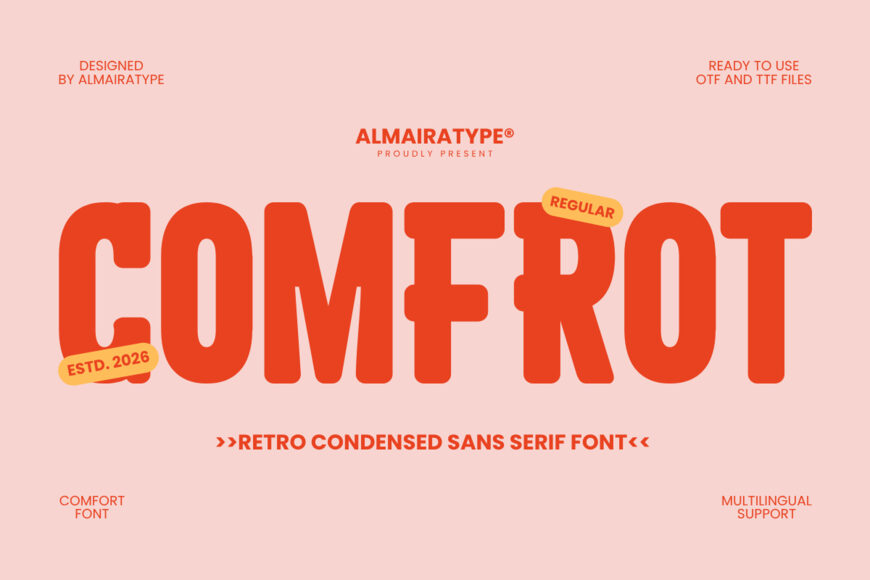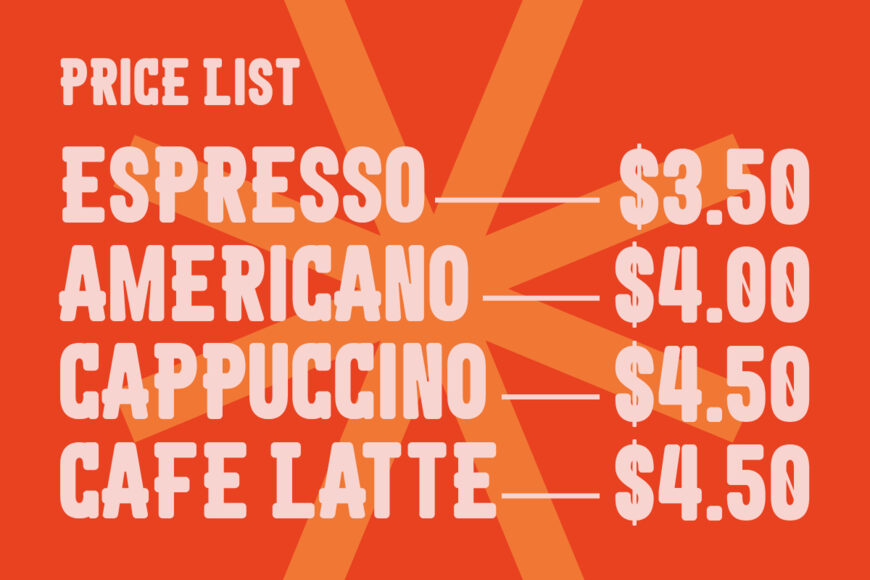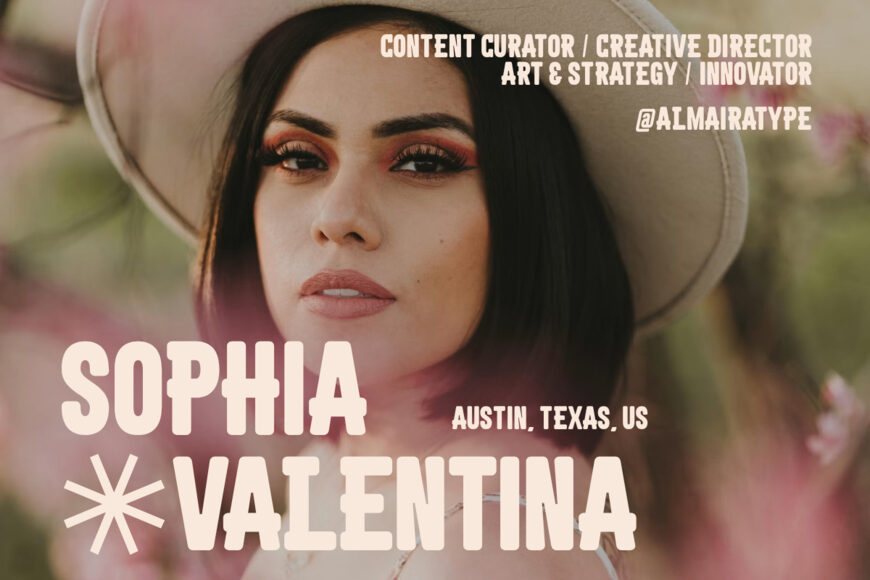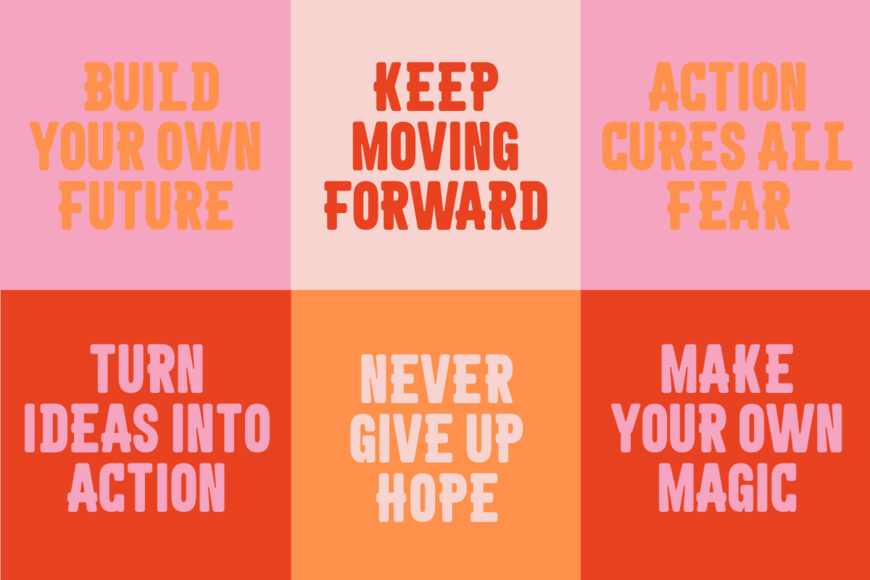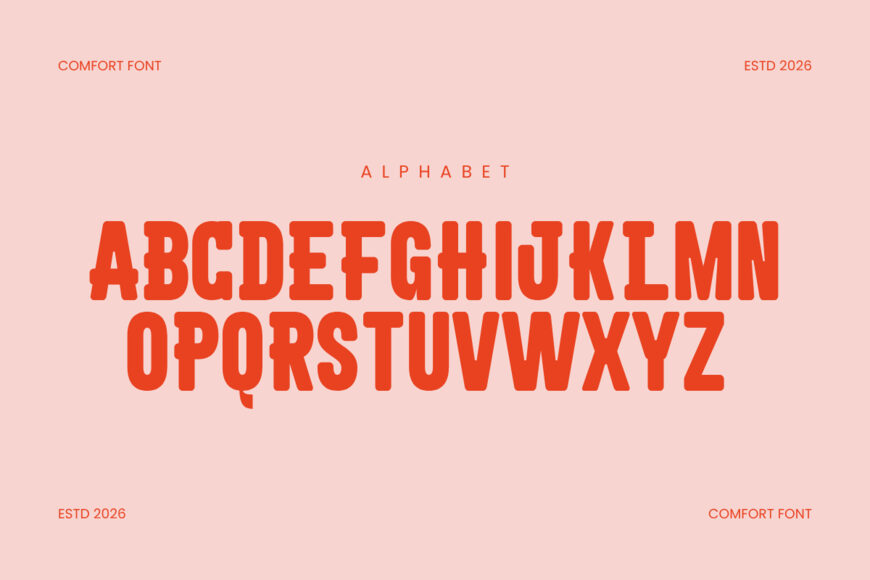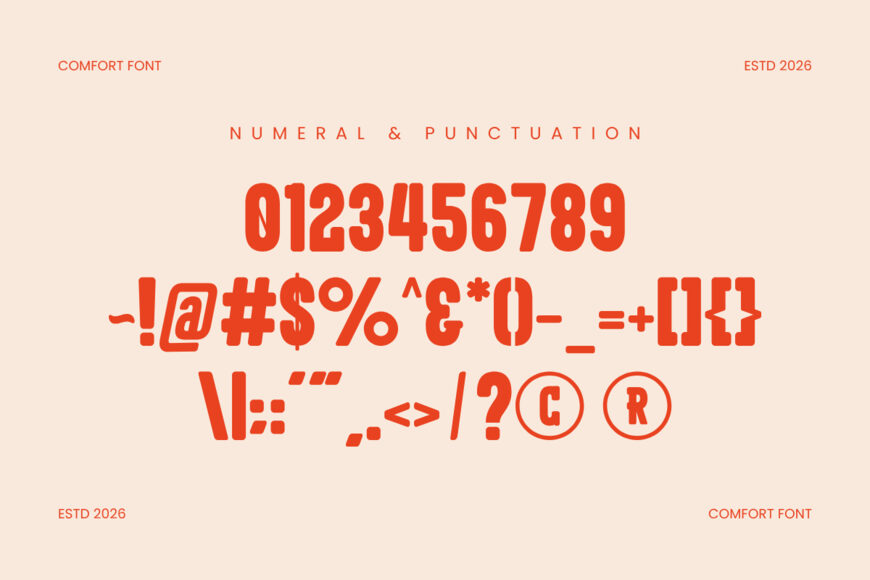
Comfort is a retro condensed sans serif font meticulously designed to bring a delightful vintage warmth and high-impact aesthetic to your modern creative projects.
Featuring a tall condensed structural anatomy with a solid display weight and smoothly rounded geometric contours, this typeface beautifully bridges the gap between classic 70s nostalgia and contemporary commercial design trends.